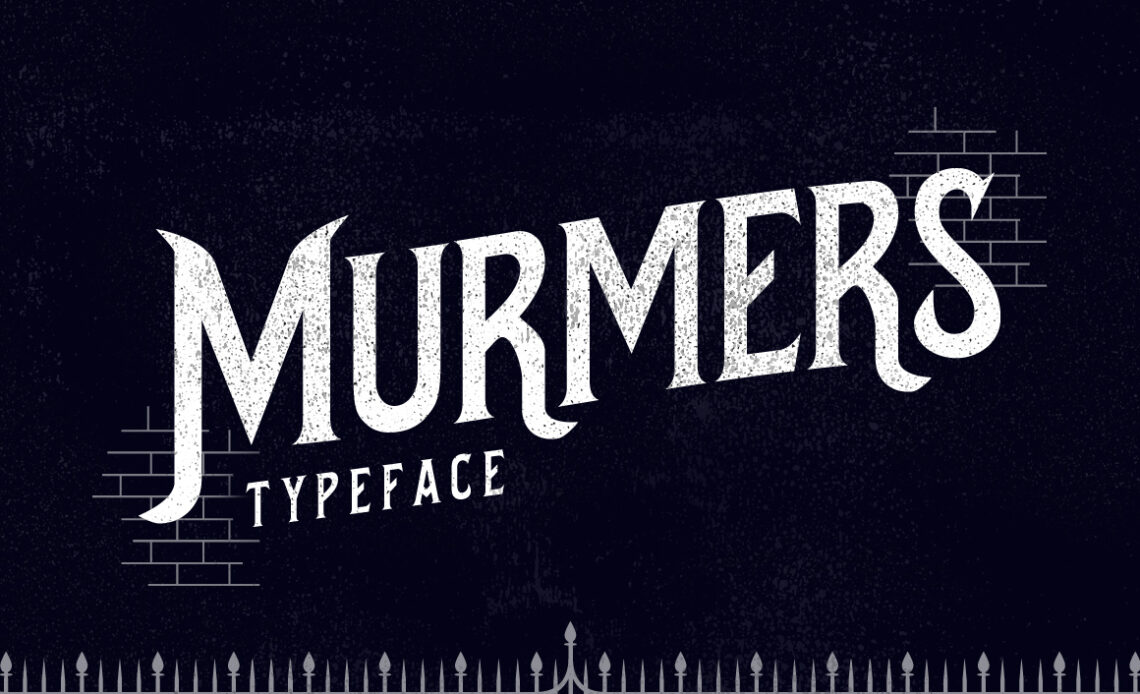
Feast your eyes upon the Murmers Font, a spellbinding display font that exudes boldness and strength like no other. Storied Type's ingenious creation draws inspiration from the captivating aura of classic mysteries, making it the perfect tool to craft designs that transcend time and leave a lasting impression.
Step into a world of vintage charm and intrigue, where the Murmers Font takes center stage. Its striking characters evoke a sense of nostalgia, inviting you to tell captivating stories through your designs. Whether you're a graphic artist, a web designer, or simply someone who appreciates exceptional typography, the Murmers Font is your gateway to a realm of visual storytelling.
With its strong and confident strokes, the Murmers Font commands attention and makes your words leap off the page or screen. Its unique design adds a touch of elegance to any project, whether it's a movie poster, a book cover, or a social media post. Unleash your creativity and let the Murmers Font be your muse as you weave tales of mystery and intrigue.
But the Murmers Font is more than just a visually striking font; it's a versatile tool that adapts seamlessly to a variety of design styles. Its classic charm lends itself beautifully to retro-inspired designs, while its timeless appeal ensures it shines in modern and contemporary contexts. Experiment with different colors, backgrounds, and layouts to discover the endless possibilities that await you.
Don't let your designs be confined to the ordinary. Embrace the Murmers Font and unlock a world of creative opportunities. Its bold presence will captivate your audience, drawing them into your designs and leaving them craving more. Let the Murmers Font be your secret weapon to create designs that linger in the memory and leave an unforgettable impact.